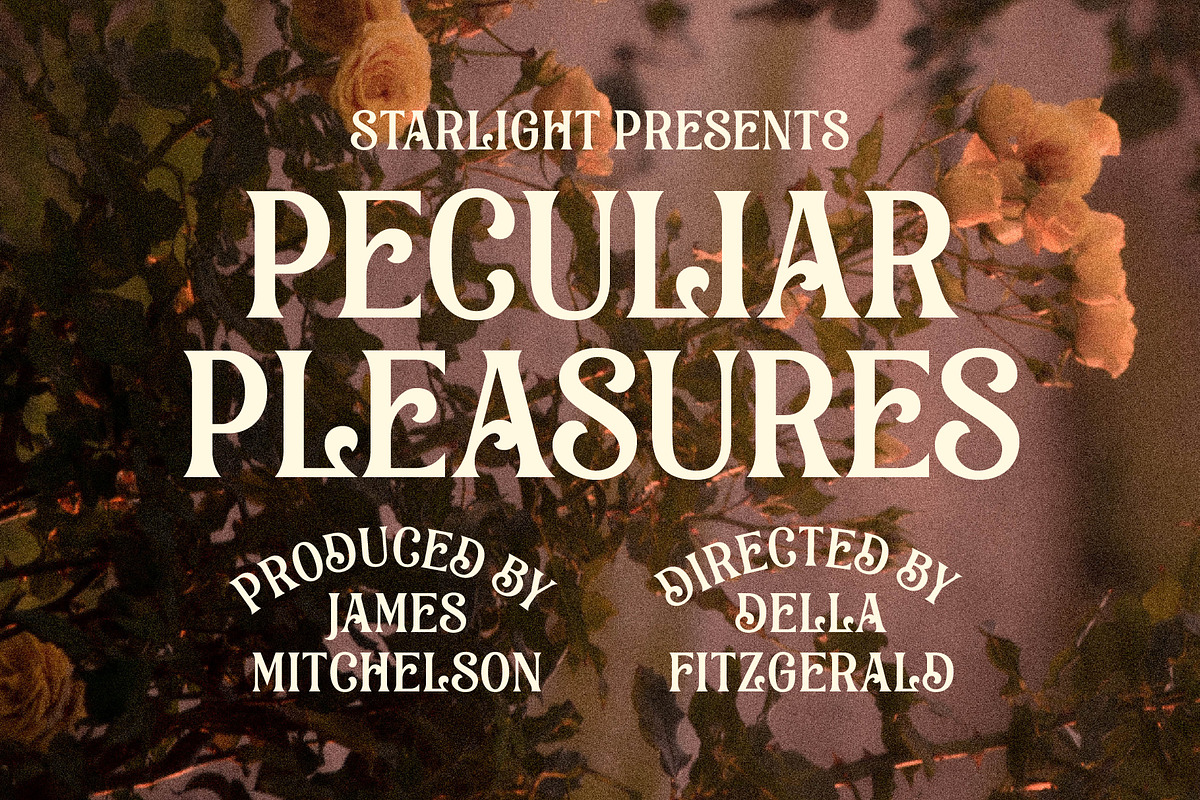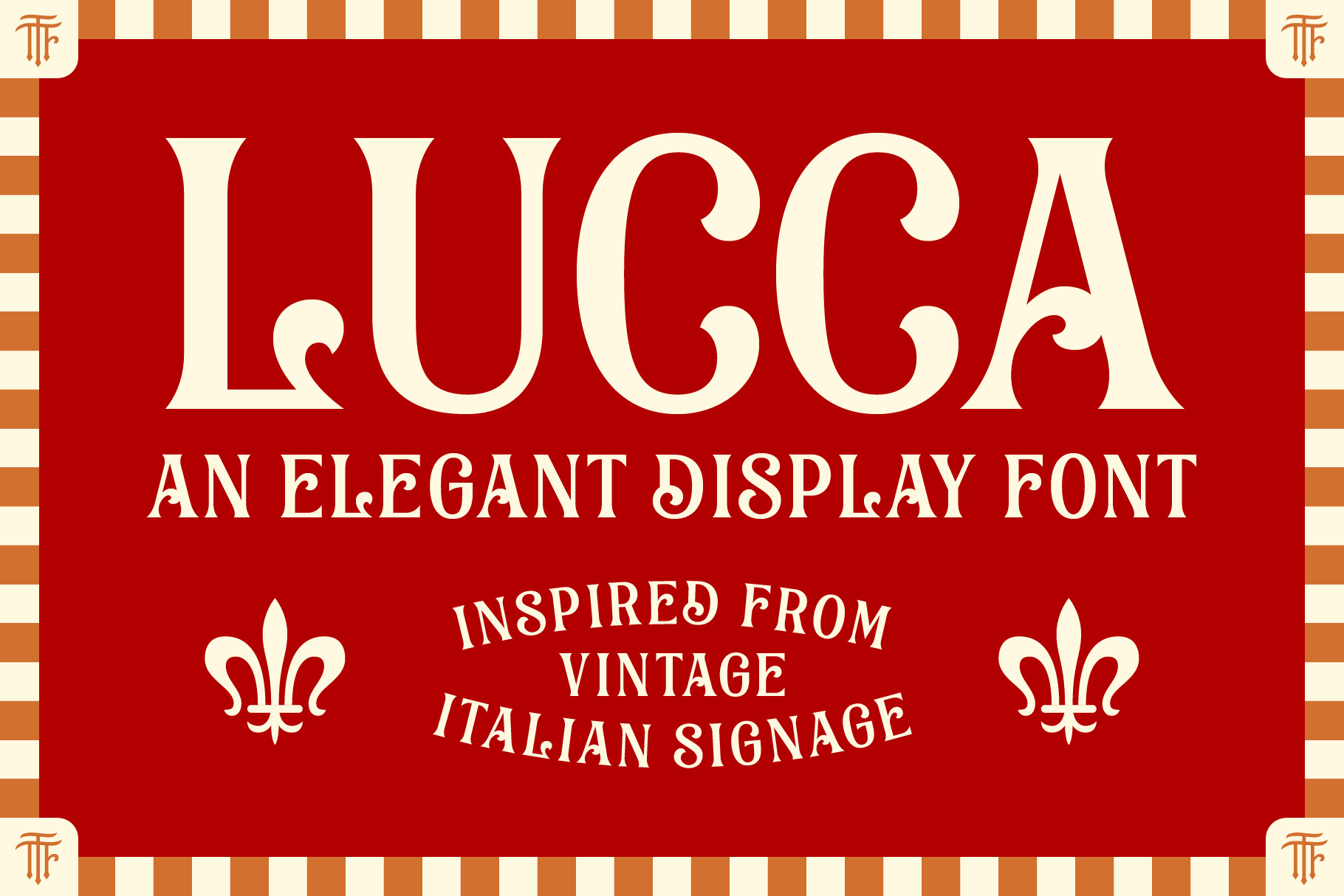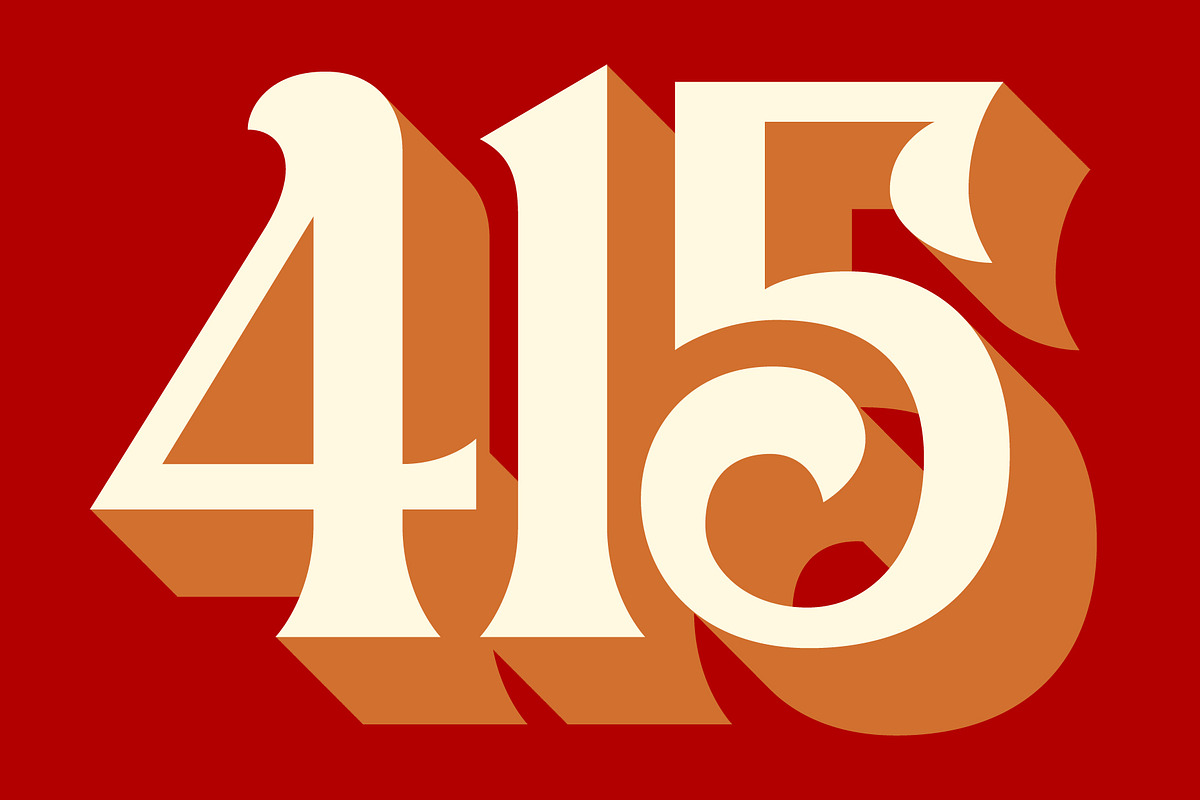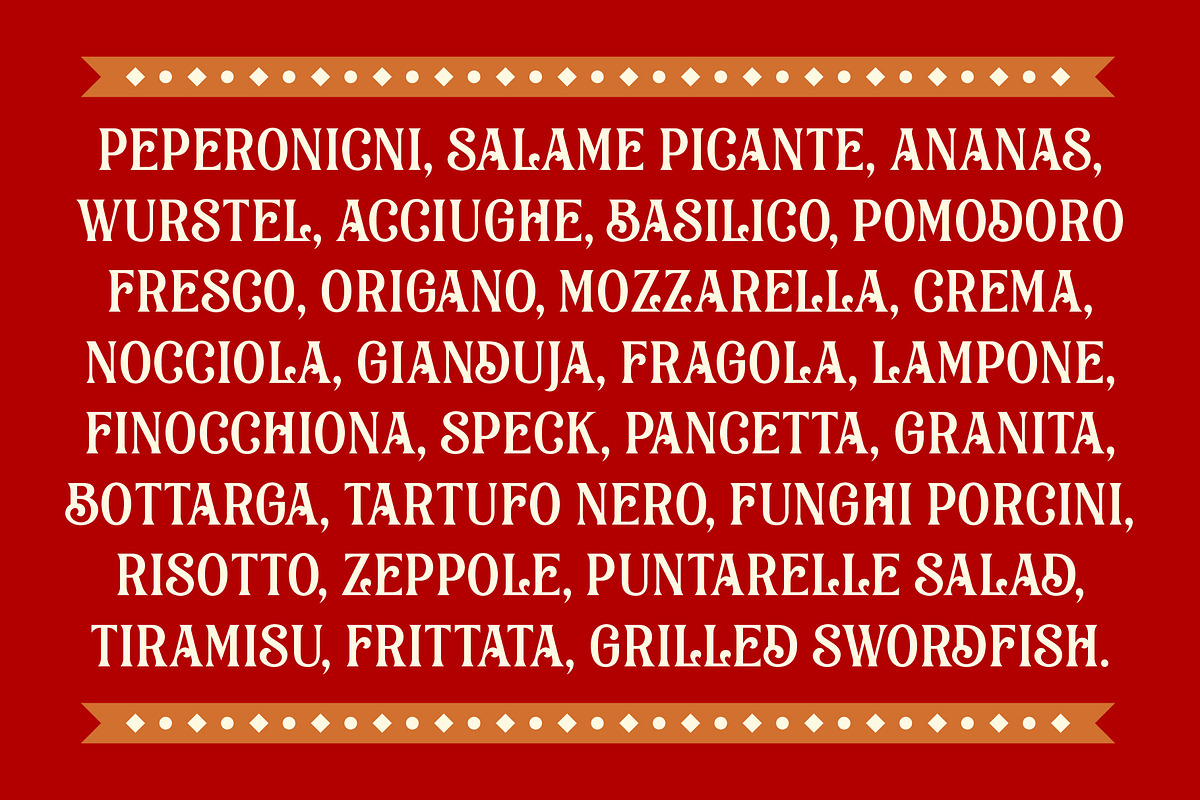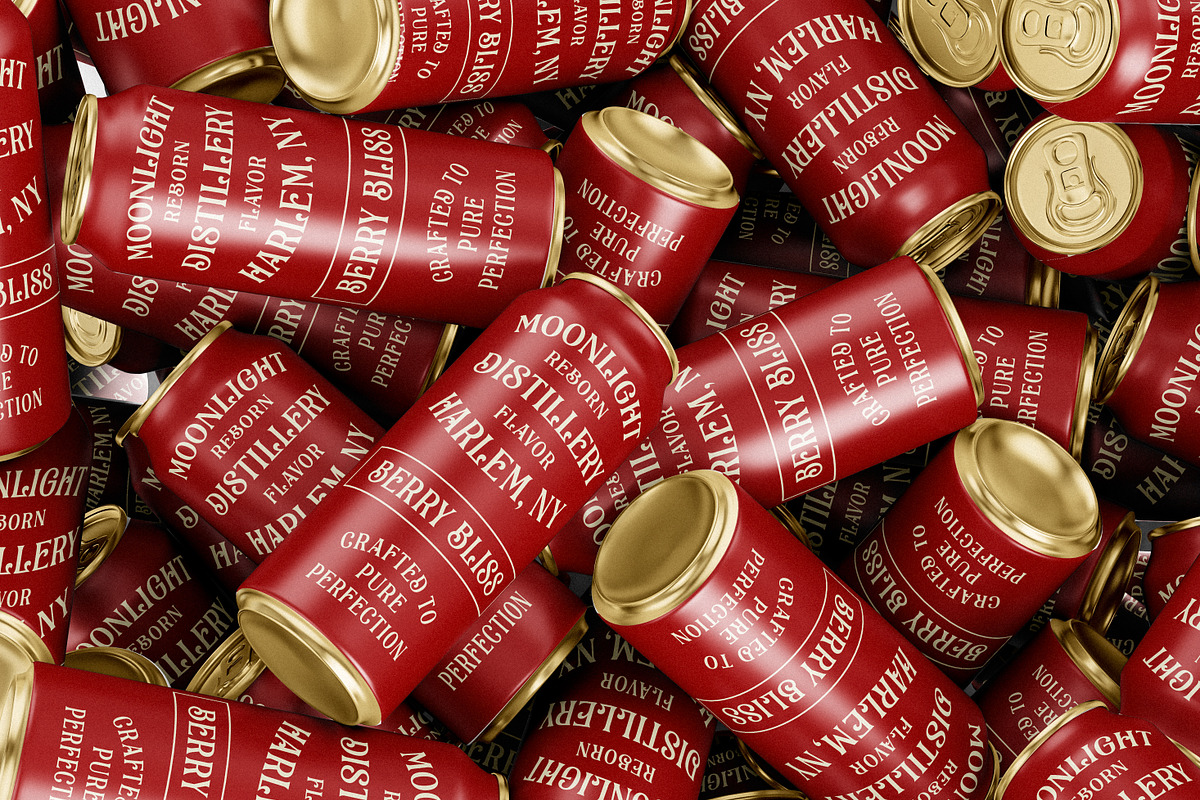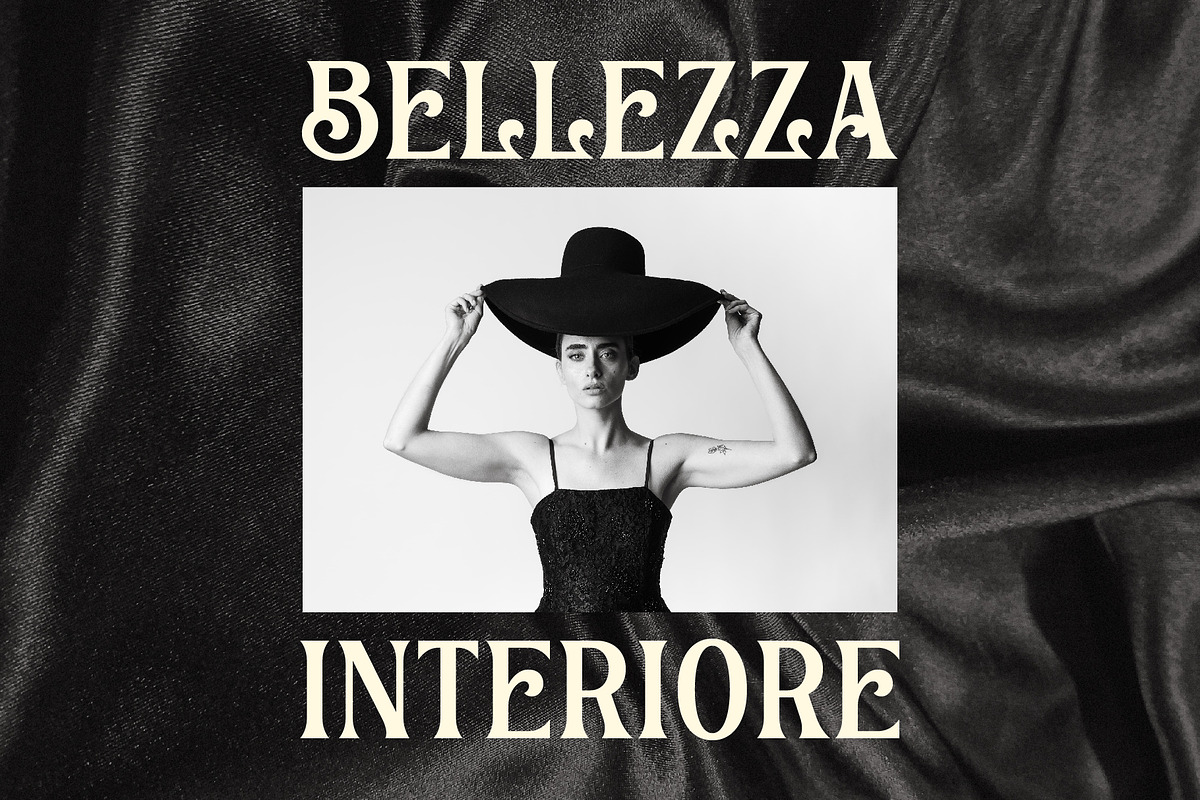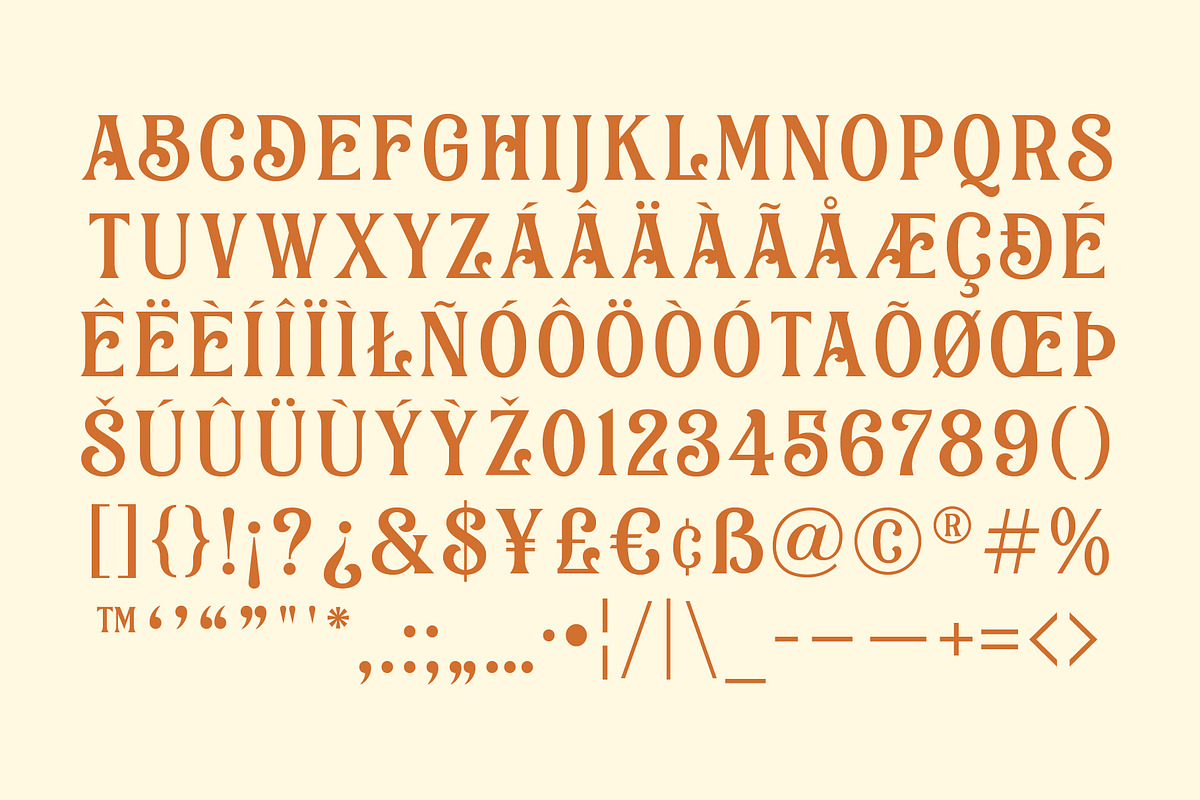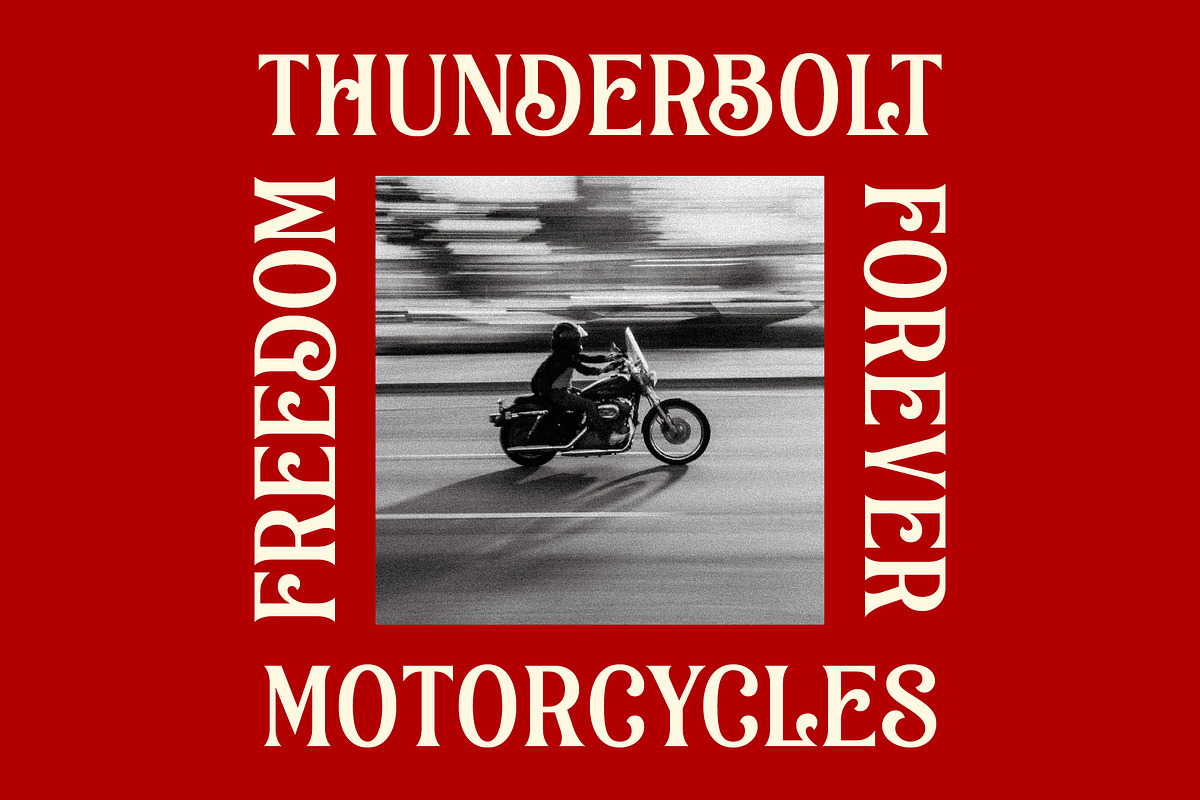
Lucca - A Vintage Italian Font
Say hello to Lucca, a meticulously crafted display font that pays homage to the alluring world of vintage Italian signage. This typeface captures the very spirit of Italian craftsmanship with its intricate detailing and graceful curls, evoking the ornate beauty found on centuries-old Italian facades. Lucca’s adaptability shines through, making it a splendid choice for elevating food branding, poster designs, signage, logos, and more.
Non-english characters: ÁÂÄÀÃÅÆÇĐÉÊËÈÍÎÏÌŁÑÓÔÖÒÓtaÕØŒÞŠÚÛÜÙÝỲŽẞ